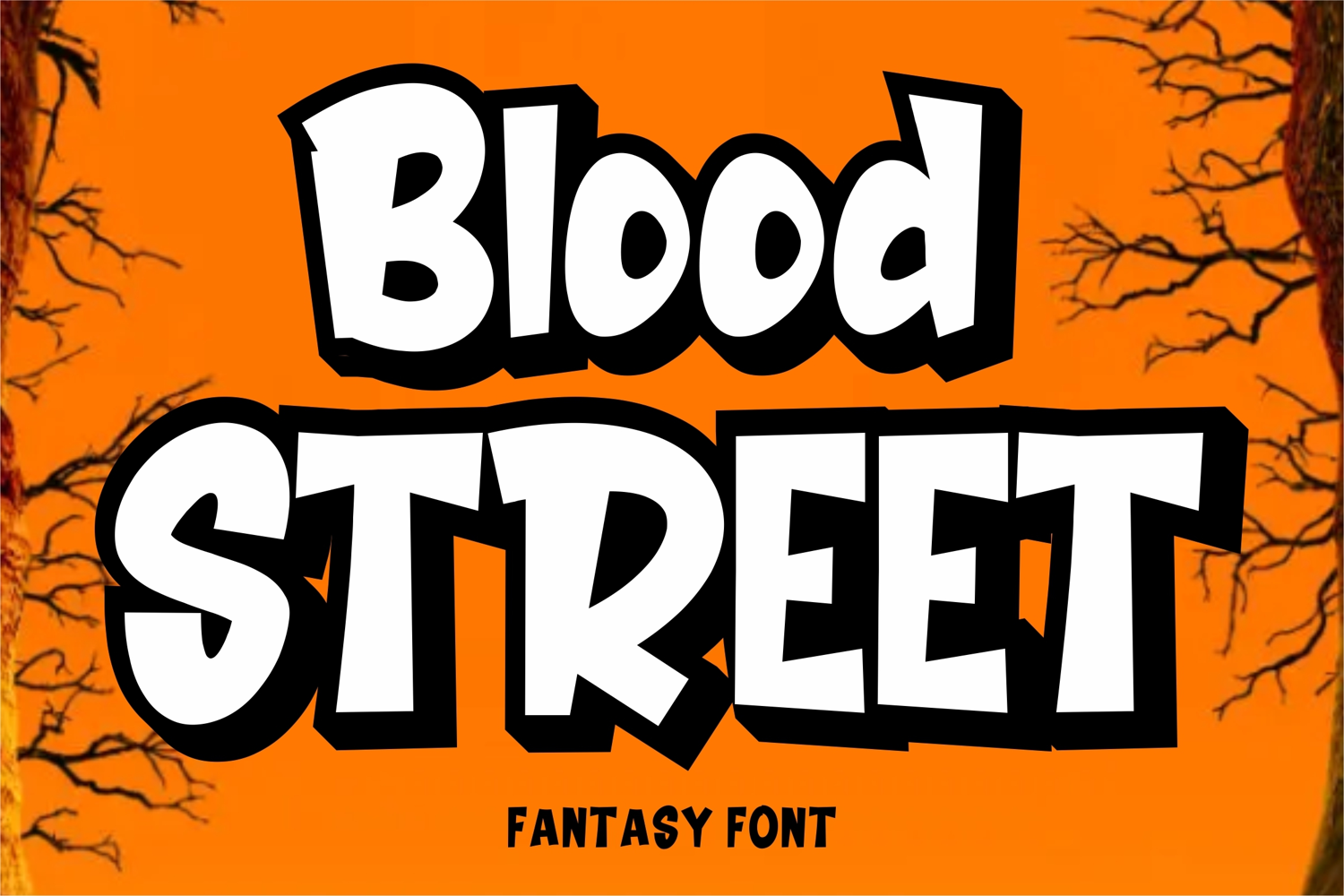
Blood Street
Blood Street Shadow
Blood Street is a spooky and dramatic display font, perfect for capturing the spirit of Halloween. Its jagged strokes and eerie style create a chilling atmosphere that’s ideal for haunted posters, horror movie titles, creepy invitations, or any design that needs a dark and sinister touch.
Whether you’re crafting ghostly party flyers, spine-tingling merchandise, or eerie social media graphics, Blood Street adds the perfect dose of fright to your creations.
Bring your Halloween designs to life with the haunting power of Blood Street!